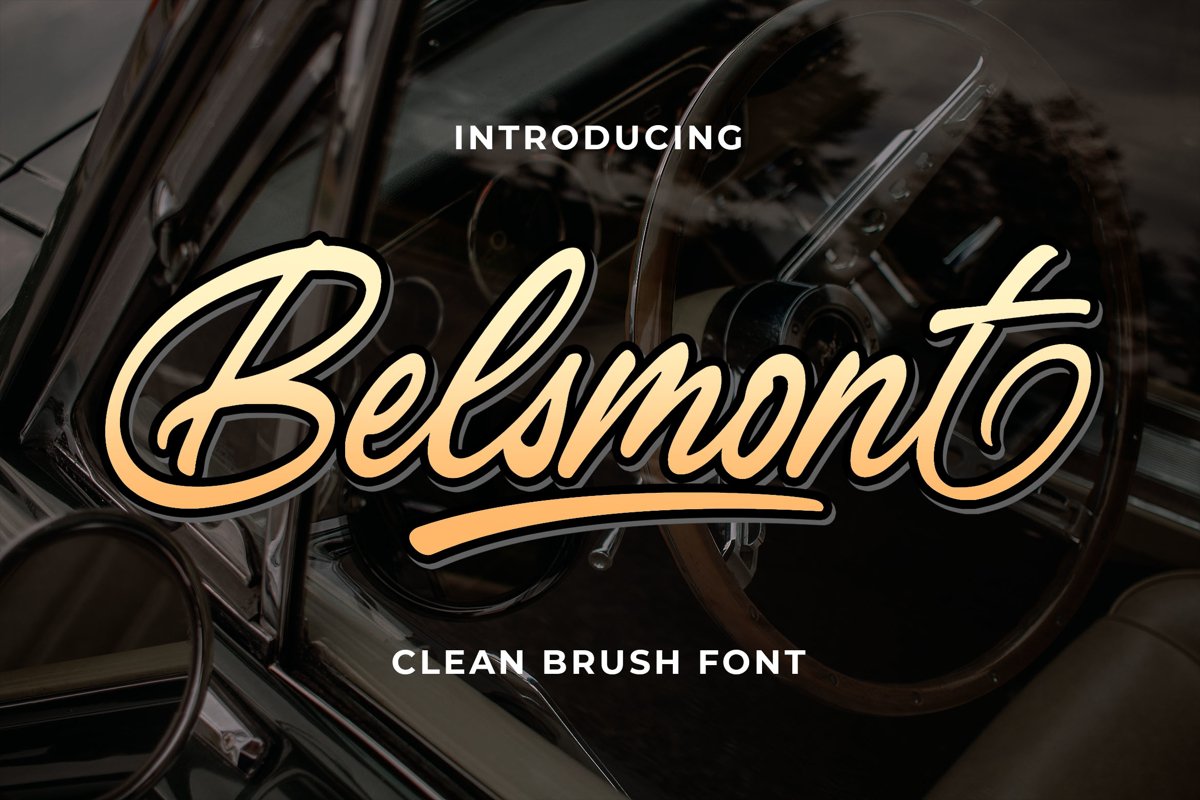
Introducing of our new product the name Belsmont Clean Brush Font. Belsmont made with brush into digital this font is a fun theme very good for signature, poster, branding, logotype etc
**MULTILINGUAL ACCENT :**
ŽžŠŒšŸÀÁÂÃÄÅÆÇÈÉÊËÌÍÎÏÐŁÑÒÓÔÕÖØÙÚÛÜÝßàáâãäåæçèéêëìíîïłñòóôõöøùúûüýÿ
**FEATURES :**
* Uppercase
* Lowercase
* Number
* Punctuation
* Multilingual